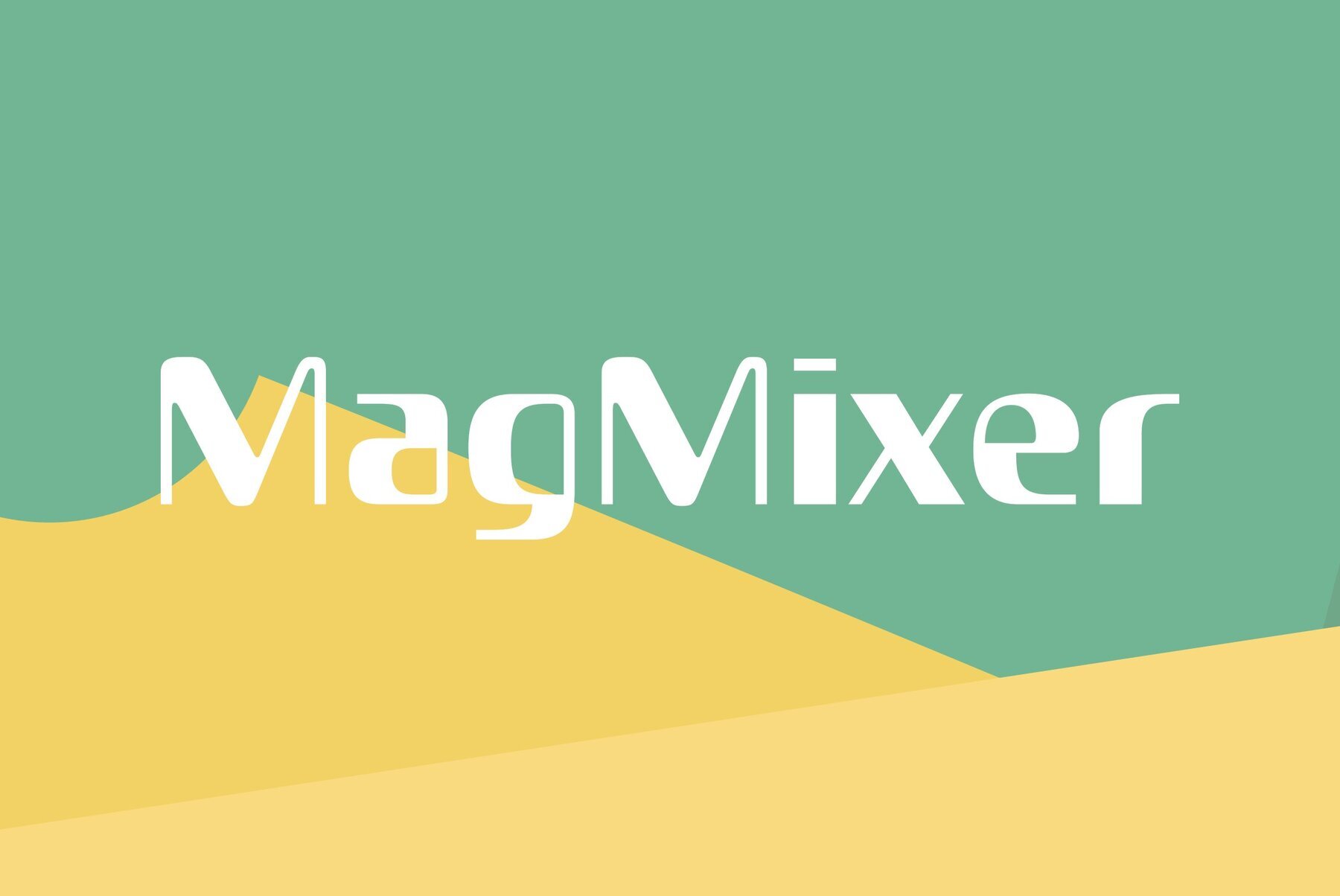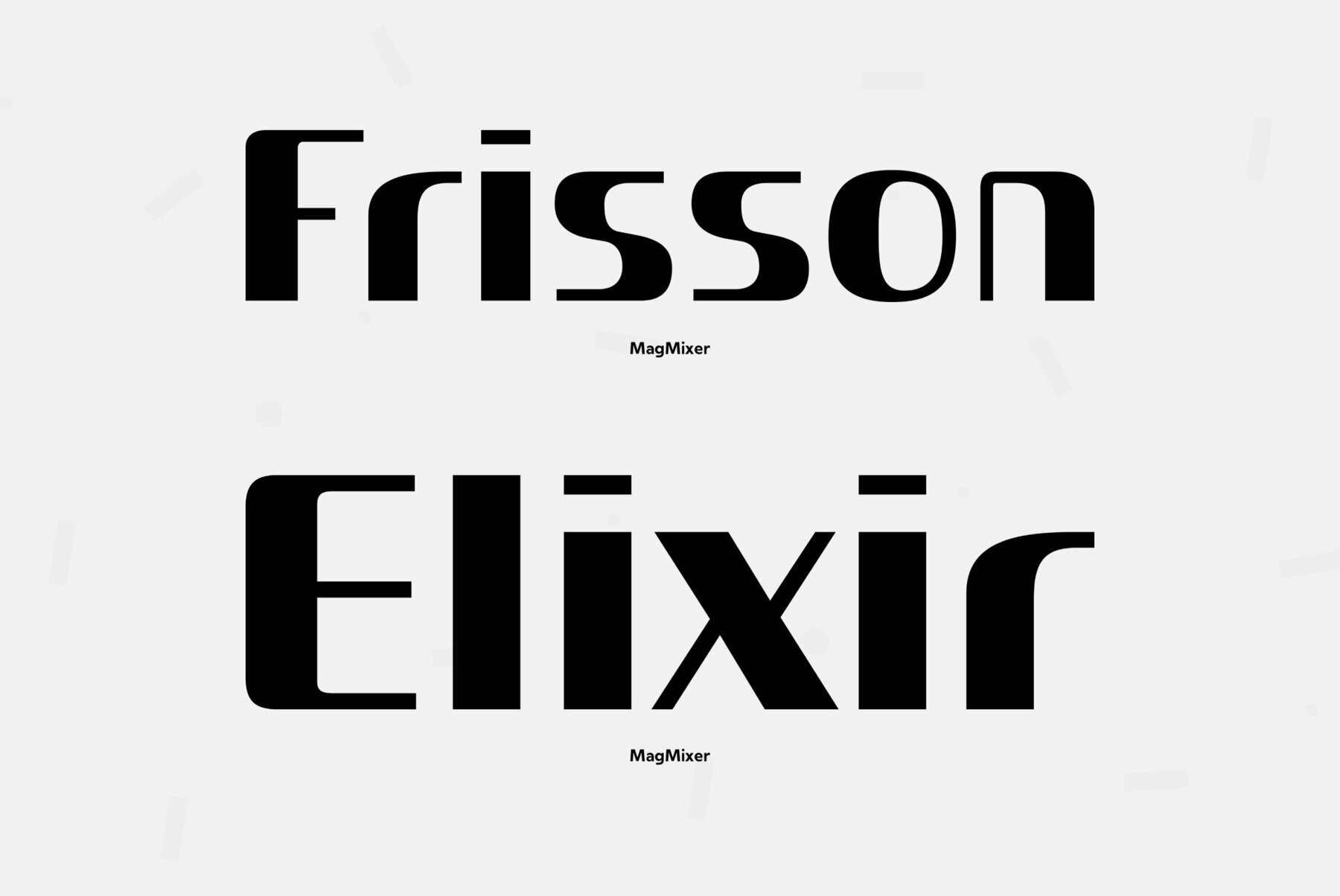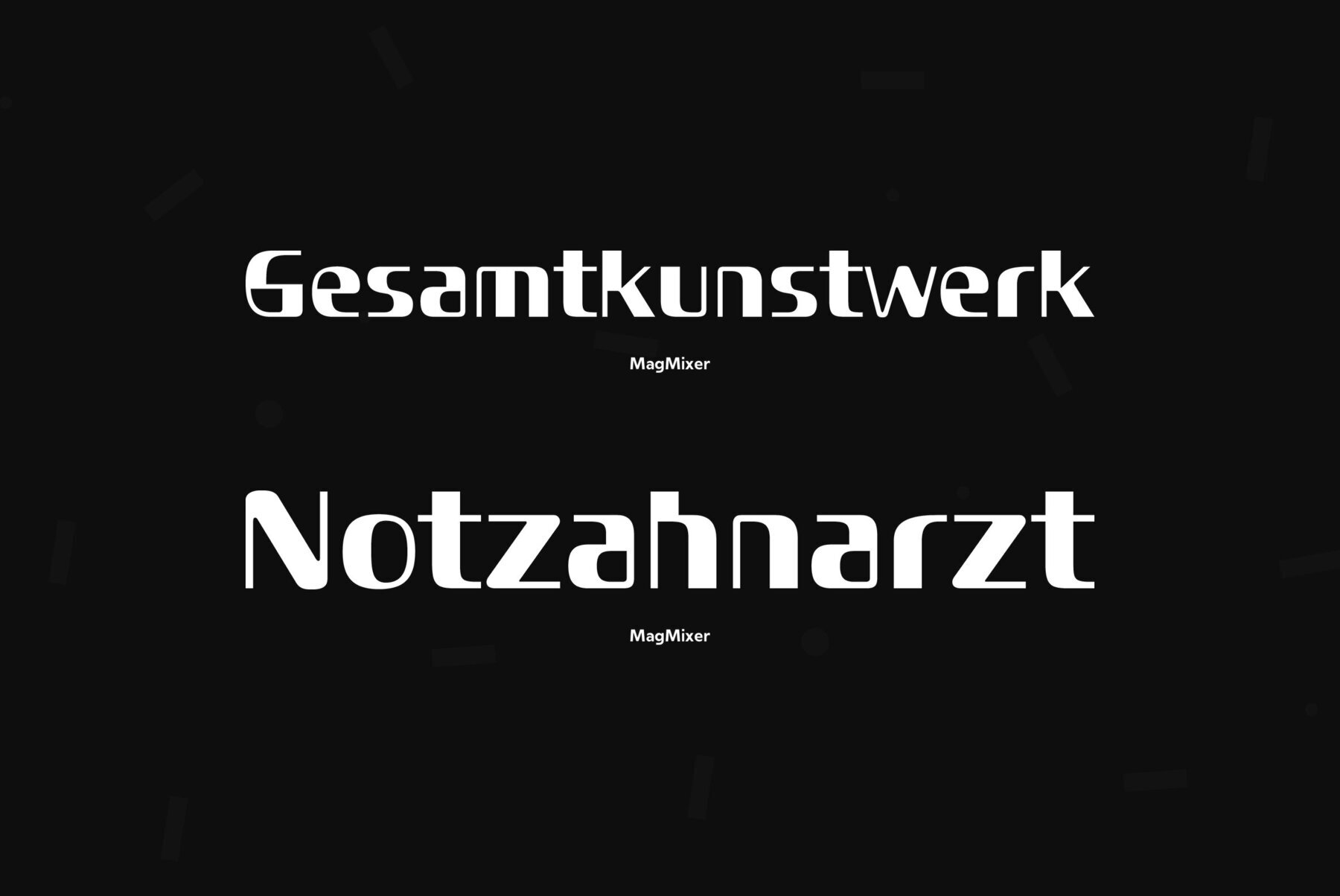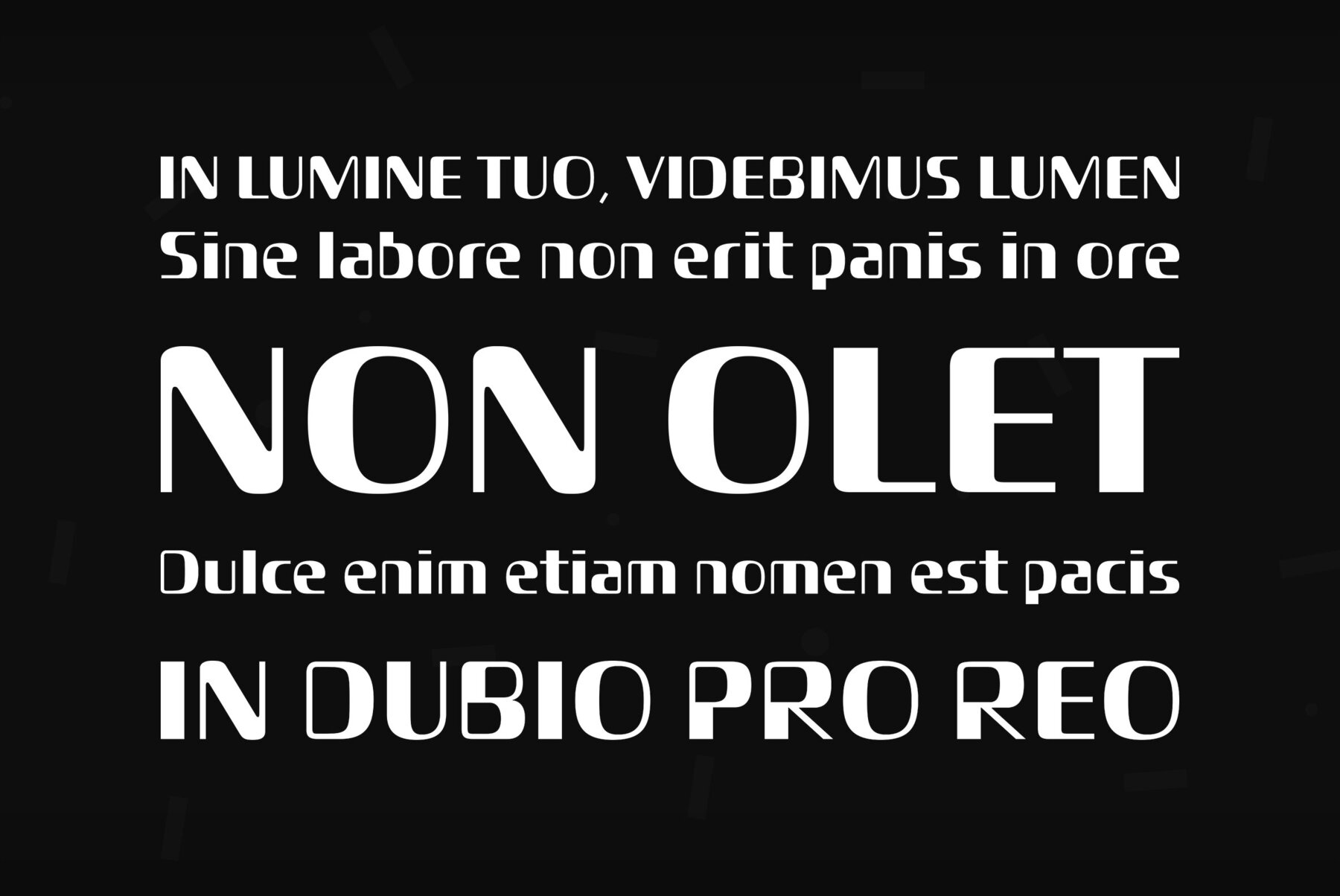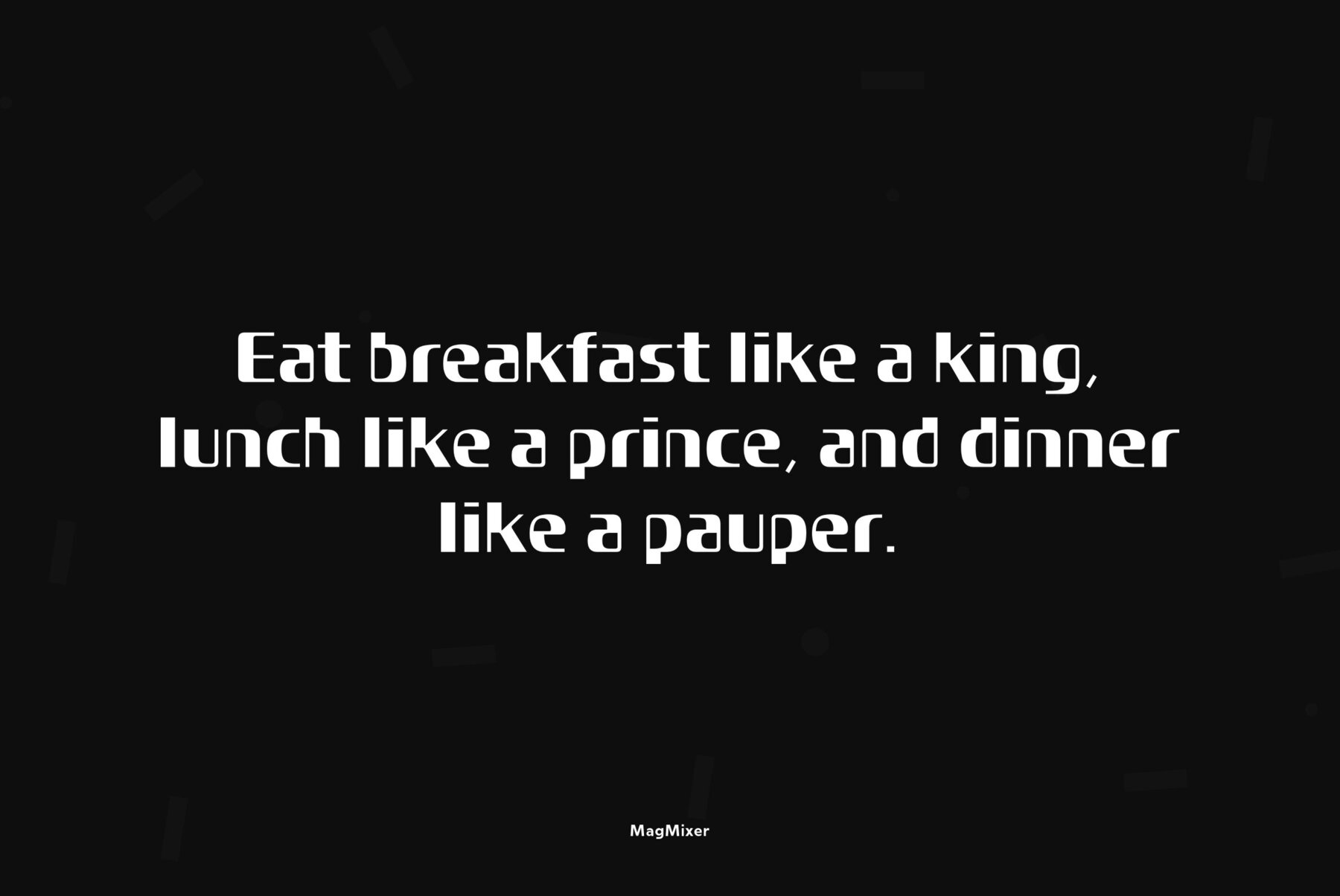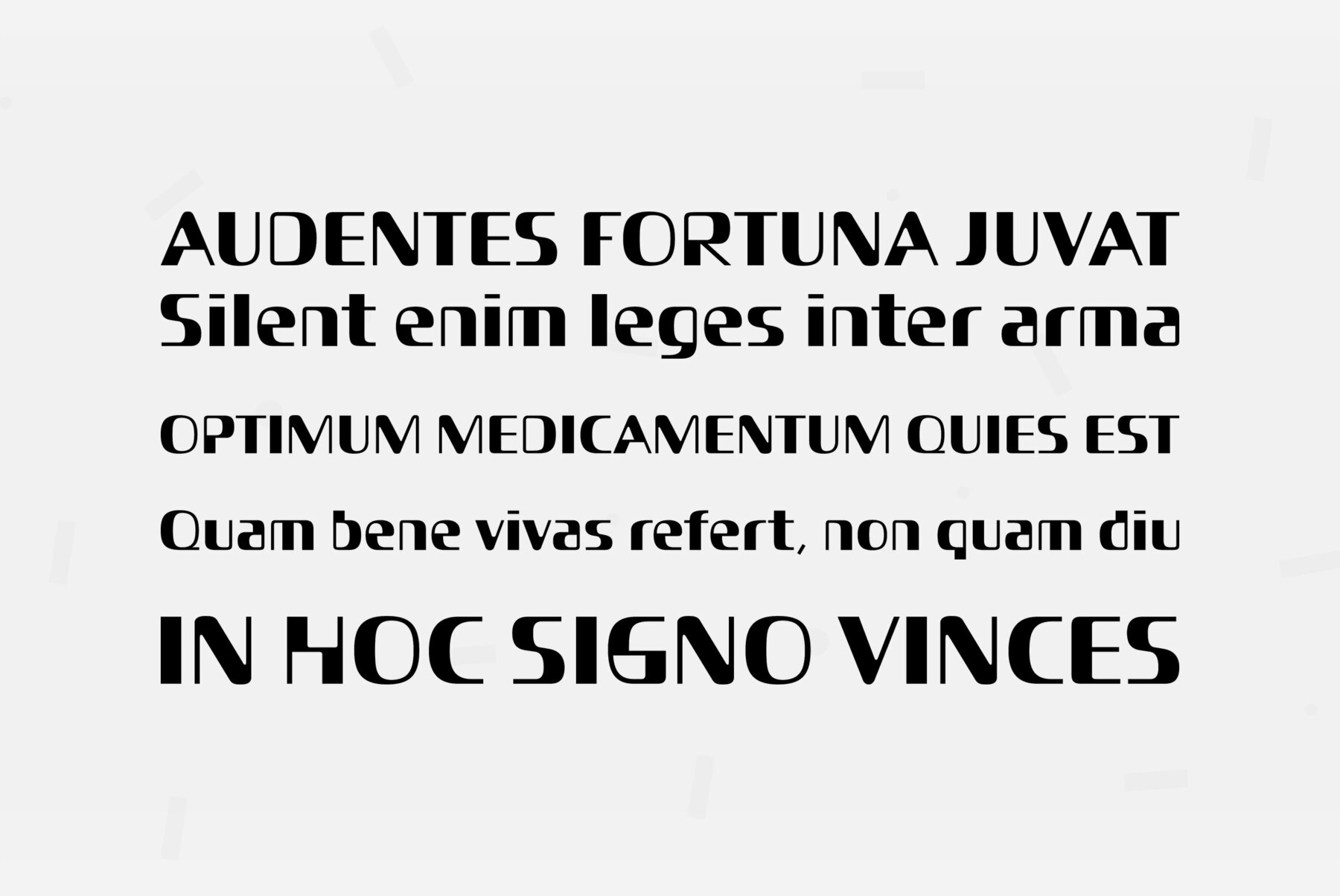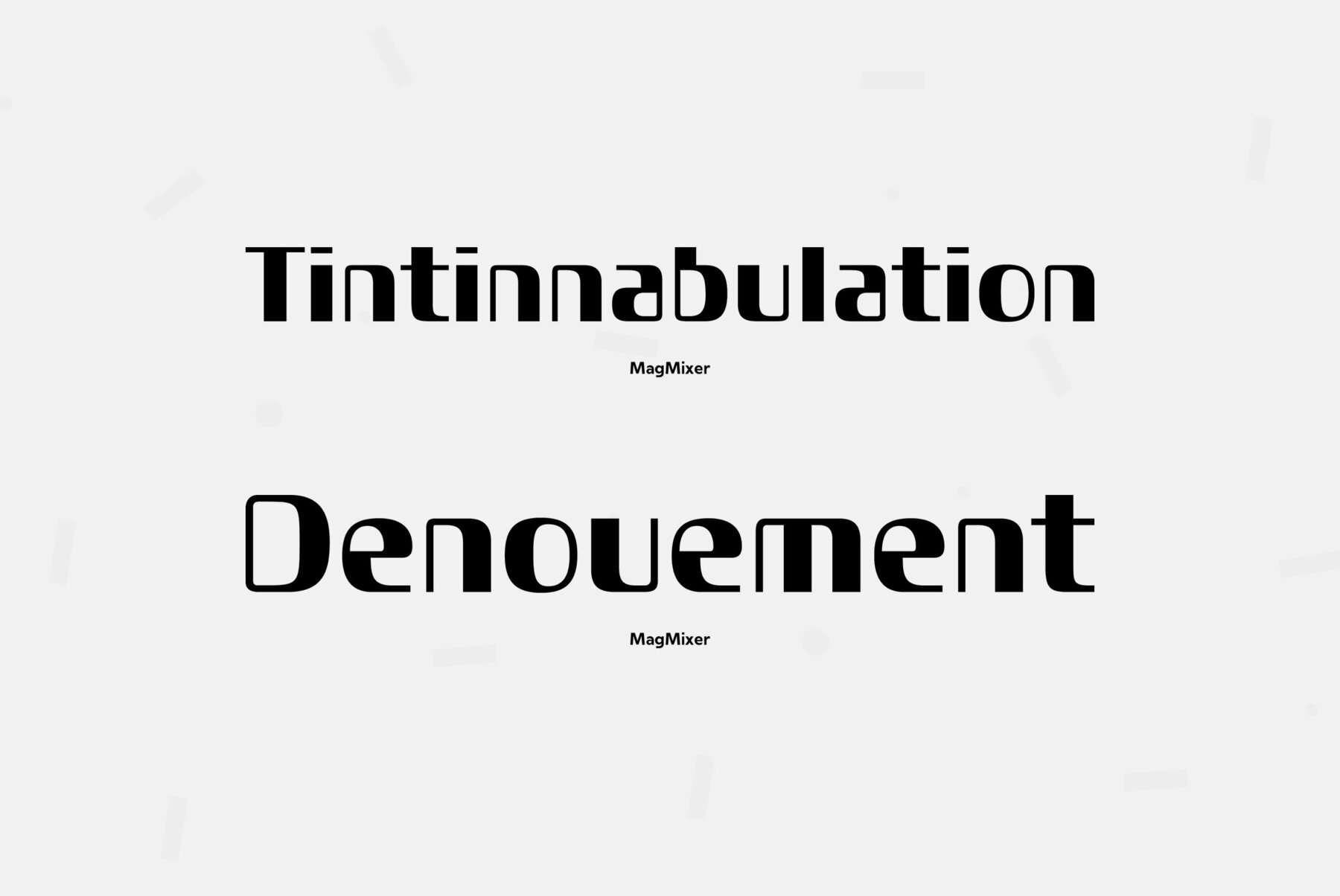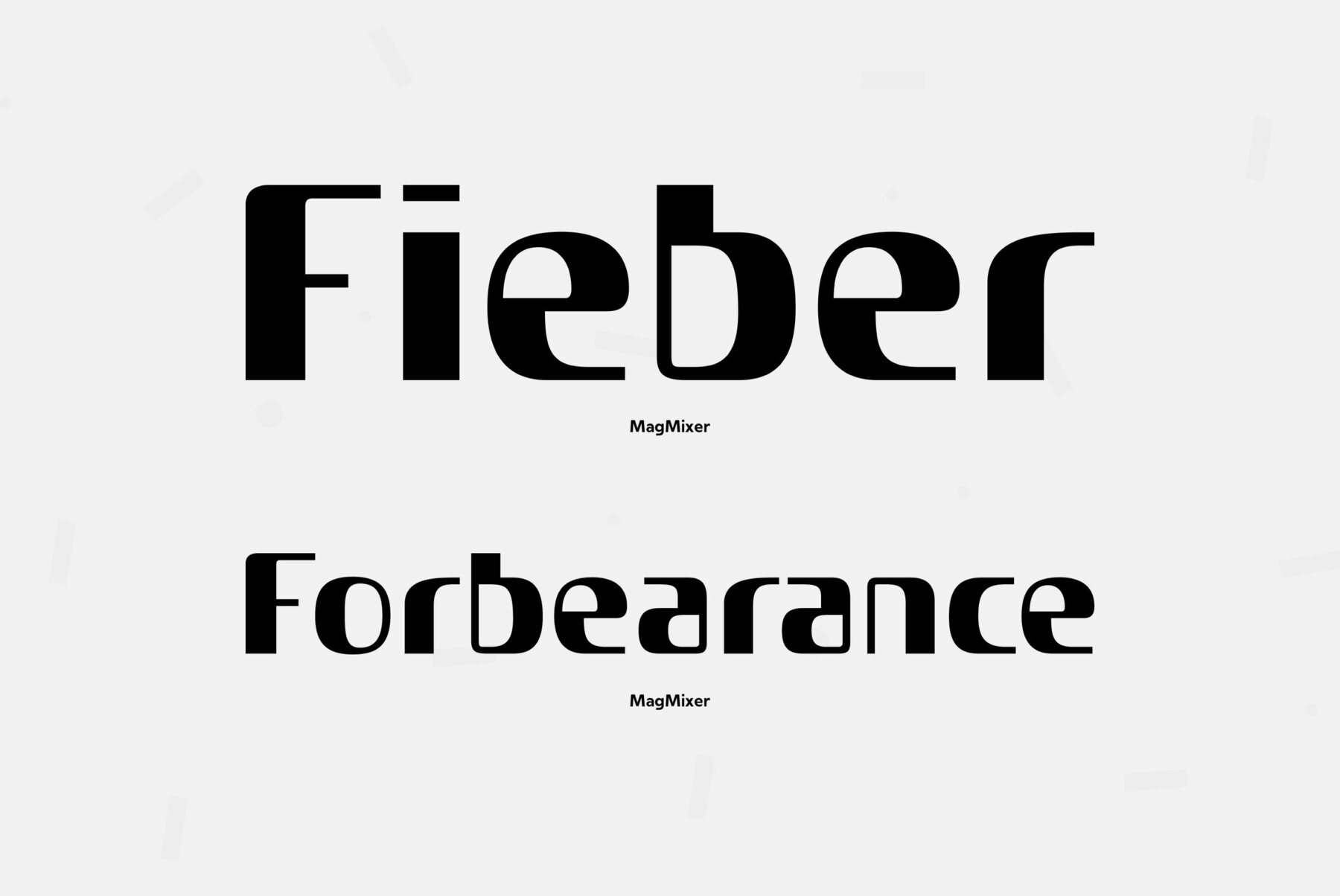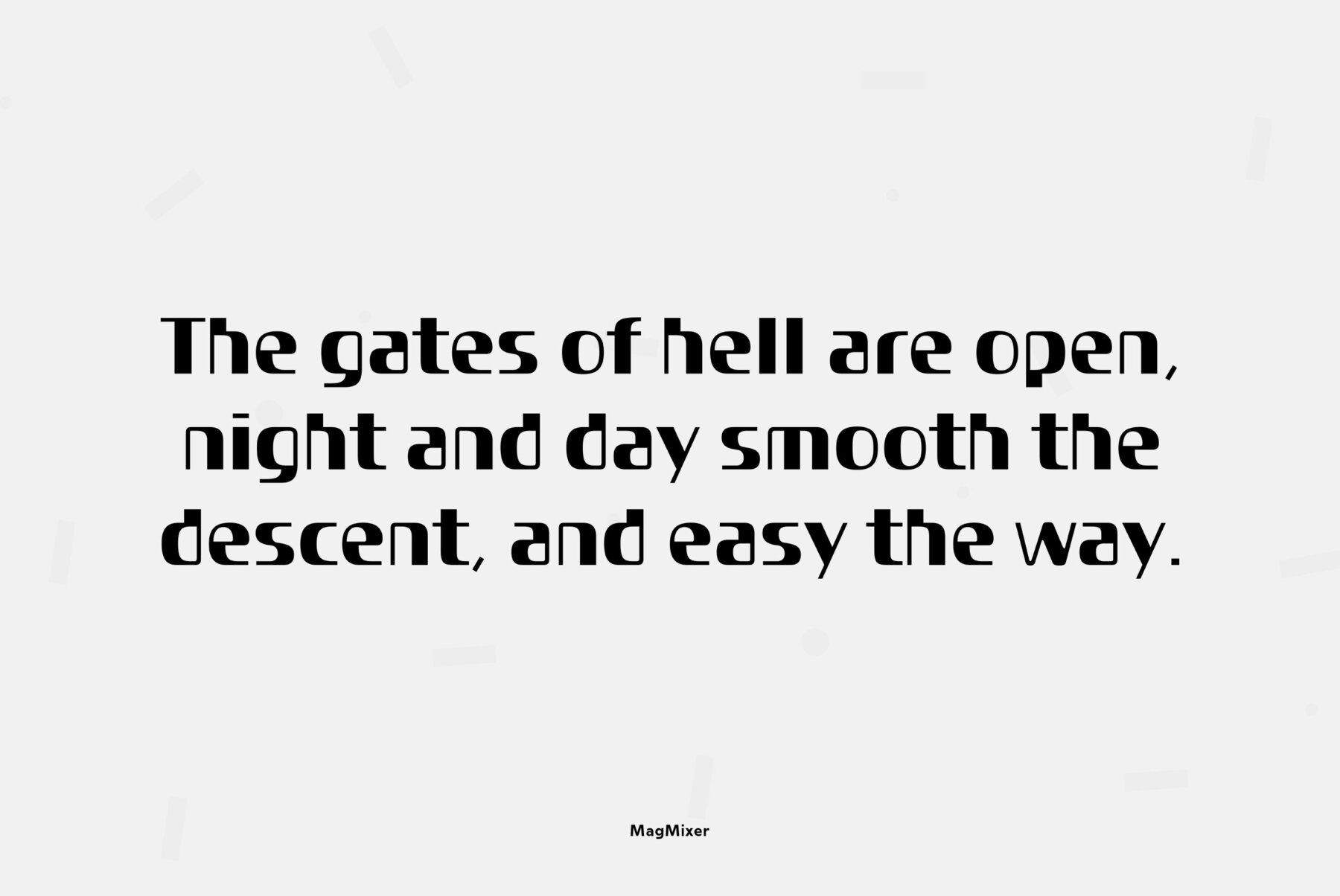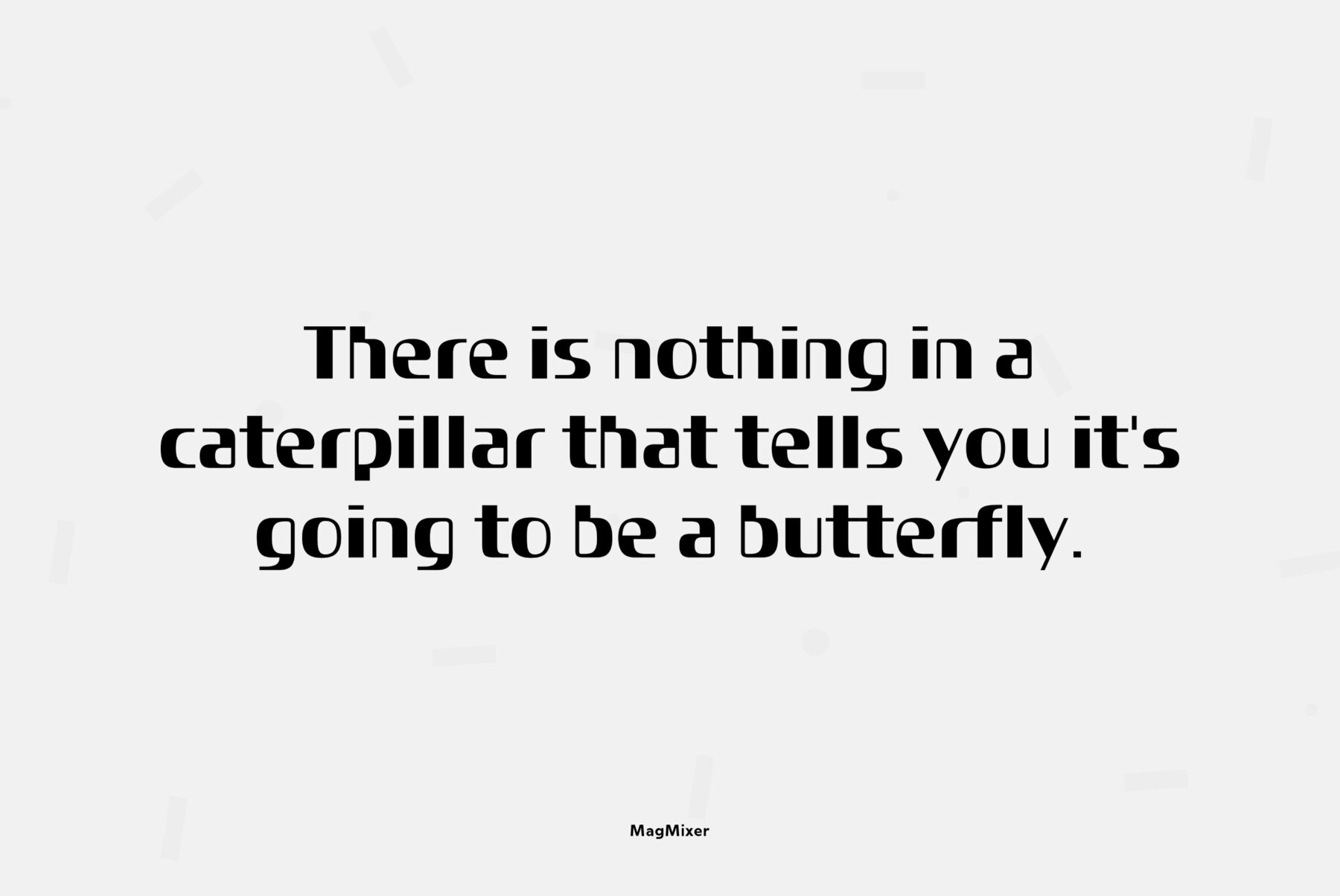
MagMixer display typeface was designed in 2005 for ParaType by Dmitry Kirsanov. During work on Magistral the disigner catched an idea of creation of more decorative face based on Magistral shapes but reflected an industrial and mechanichal approach. Each glyph has maximal contrast between strokes and horisontal shift in shape. The result is some strange and enigmatic but legible letterforms with active inner rhythm. Its letters remind of building constructions, chess board, and many other things that corresponding to author's task. For use in advertising and display typography.